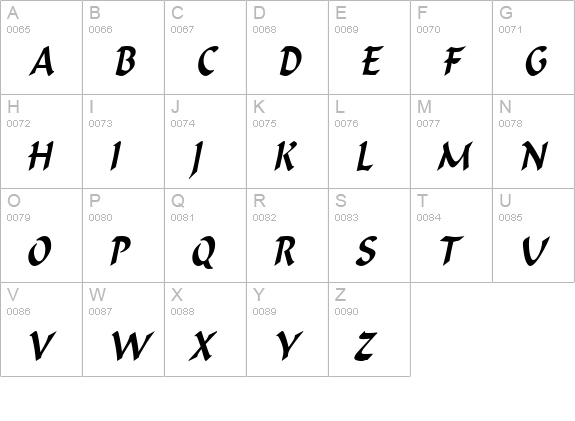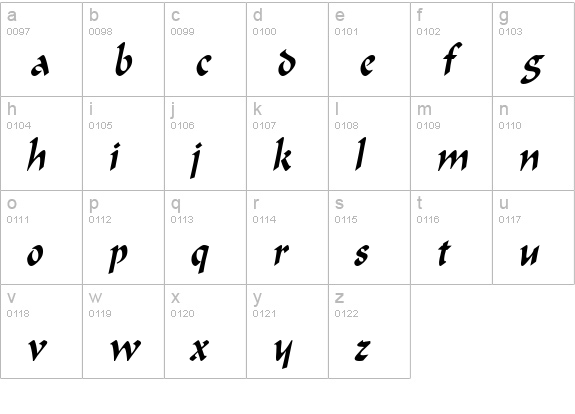
Marlin Condensed Italic Font Details
Marlin Condensed Italic is a distinctive, condensed-width, italic variant in the Marlin typeface family \xE2\x80\x94 well suited to design and typography projects.
Marlin Condensed Italic is a sleek and sophisticated typeface that effortlessly combines elegance with modernity. Its condensed design adds a touch of refinement, making it perfect for projects that require a stylish and compact font. With its italicized slant, Marlin Condensed Italic exudes a sense of dynamism and movement, adding a subtle flair to any text. Whether used for headings, subheadings, or body text, this font captures attention and conveys a sense of professionalism. The unique attributes of Marlin Condensed Italic make it compatible with a wide range of design projects. From fashion magazines to luxury branding, from corporate presentations to editorial layouts, this font effortlessly adapts to various contexts, enhancing the visual appeal and legibility of any text. One of the best things about Marlin Condensed Italic is that it is freely available to download at FontsMarket.com. This means that designers, creatives, and enthusiasts alike can access this extraordinary font without any cost. Its availability as a free font adds immense value, making it an excellent choice for both personal and commercial projects. Whether you are a seasoned designer looking to add a touch of elegance to your work or an individual embarking on a creative project, Marlin Condensed Italic is a font that will undoubtedly exceed your expectations. Its sleek, condensed design, coupled with its italicized slant, creates a captivating and versatile typeface that is sure to make a lasting impression. So go ahead and download Marlin Condensed Italic for free at FontsMarket.com and elevate your designs to new heights.